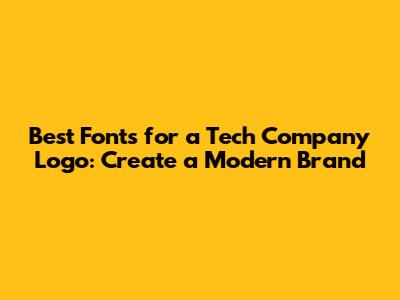
- Helvetica: A classic and timeless font that is known for its neutrality and versatility.
- Arial: A widely used font that is similar to Helvetica but with slight differences in its design.
- Futura: A geometric font that conveys a sense of futurism and precision.
- Open Sans: A humanist sans-serif font that is highly readable and approachable.
- Roboto: A modern and clean font that is designed for readability on digital screens.
- Times New Roman: A classic serif font that is known for its readability and versatility.
- Georgia: A serif font that is designed for readability on digital screens.
- Playfair Display: A high-contrast serif font that is elegant and sophisticated.
- Merriweather: A serif font that is designed for readability on both print and digital media.
- Roboto Slab: A slab serif font that is modern and approachable.
- Futura: As mentioned earlier, Futura is a classic geometric font that is known for its clean lines and minimalist design.
- Gotham: A geometric sans-serif font that is highly readable and versatile.
- Montserrat: A geometric sans-serif font that is inspired by urban typography.
- Raleway: A geometric sans-serif font that is elegant and modern.
- Cabin: A humanist sans-serif font that is inspired by geometric forms.
- Bebas Neue: A tall and narrow sans-serif font that is popular for headlines and titles.
- Avenir: A geometric sans-serif font that is modern and elegant.
- Lato: A sans-serif font that is both readable and stylish.
- Poppins: A geometric sans-serif font that is modern and versatile.
- Exo: A futuristic sans-serif font that is inspired by space exploration.
- Consider Your Brand Identity: What is your brand all about? Are you innovative, reliable, playful, or sophisticated? Your font should reflect these qualities. Think about your brand's personality and values, and choose a font that aligns with them.
- Think About Your Target Audience: Who are you trying to reach? Are you targeting tech-savvy millennials, business professionals, or a more general audience? Your font should appeal to your target audience and resonate with their preferences.
- Ensure Readability and Legibility: This is crucial! Your logo should be easily readable across various platforms and sizes, from websites and mobile apps to business cards and billboards. Avoid fonts that are too decorative or stylized, as they can be difficult to read.
- Test Your Font in Different Contexts: Before finalizing your font choice, test it out in different contexts to see how it looks. Try it in different sizes, colors, and backgrounds. Make sure it looks good both online and offline.
- Consider Font Pairing: Sometimes, using two different fonts in your logo can create a more dynamic and visually appealing effect. However, it's important to choose fonts that complement each other well. A general rule of thumb is to pair a sans-serif font with a serif font, or a bold font with a lighter font.
- Don't Be Afraid to Be Unique: While it's important to consider popular font choices, don't be afraid to be unique and choose a font that stands out from the crowd. However, make sure your font is still appropriate for your brand and target audience.
- Get Feedback: Ask for feedback from colleagues, friends, or even potential customers. Getting a fresh perspective can help you identify any potential issues or make sure your font choice is resonating with your target audience.
Choosing the best font for your tech company logo is super important, guys! It's not just about picking something that looks cool; it’s about finding a typeface that perfectly embodies your brand's identity, values, and vision. Your logo is often the first thing potential customers see, so you want it to make a stellar impression. A well-chosen font can communicate innovation, reliability, and sophistication – all key traits for a successful tech company. On the flip side, a poorly chosen font can make your brand look outdated, unprofessional, or even untrustworthy. Think about it: a tech startup using Comic Sans? Yikes! Not a good look, right? Selecting the right font is a strategic decision that can significantly impact how your brand is perceived in the marketplace. It's about striking a balance between aesthetics and functionality, ensuring that your logo is not only visually appealing but also easily readable across various platforms and sizes. In this article, we'll dive into some of the best fonts that can help your tech company stand out from the crowd and make a lasting impression. We'll explore different font categories, discuss their unique characteristics, and provide practical tips for choosing the perfect font for your brand. So, buckle up and get ready to discover the fonts that will elevate your tech company's logo to the next level!
Understanding the Importance of Typography in Branding
Typography plays a critical role in branding, especially for tech companies aiming to project a modern and innovative image. The fonts you choose aren't just decorative elements; they're powerful tools that communicate your brand's personality and values. Think of typography as the voice of your brand – it speaks volumes without saying a word. Different fonts evoke different emotions and associations. For example, a clean and geometric sans-serif font might convey a sense of modernity, efficiency, and trustworthiness, while a more playful and rounded font could suggest creativity and approachability. The key is to align your font choices with your brand's core identity. Consider the overall message you want to send to your target audience. Are you a cutting-edge AI startup pushing the boundaries of technology? Or are you a user-friendly software company focused on simplifying complex tasks? Your font should reflect these nuances. Moreover, typography affects readability and legibility. A well-chosen font ensures that your logo and other marketing materials are easily readable across various platforms, from websites and mobile apps to business cards and billboards. Poorly chosen fonts, on the other hand, can strain the eyes and make it difficult for customers to engage with your brand. In the digital age, where attention spans are shorter than ever, you need to make sure your typography is on point. A consistent and well-thought-out typography strategy can also strengthen brand recognition and create a cohesive visual identity. When customers see your logo, website, or marketing materials, they should immediately recognize your brand based on the fonts you use. This consistency helps build trust and familiarity, making it easier for customers to connect with your brand on an emotional level. So, don't underestimate the power of typography. It's a fundamental element of branding that can make or break your tech company's image. By carefully selecting fonts that align with your brand's personality, values, and target audience, you can create a strong and memorable visual identity that sets you apart from the competition.
Top Font Categories for Tech Logos
When it comes to selecting the best font for your tech company logo, exploring different font categories is a great starting point. Each category has its unique characteristics and conveys a different message, so it's important to understand the nuances of each one. Here are some top font categories that are commonly used for tech logos:
1. Sans-Serif Fonts
Sans-serif fonts are often the go-to choice for tech companies because they exude modernity, simplicity, and clarity. Unlike serif fonts, which have small decorative strokes at the end of each letter, sans-serif fonts have clean, unadorned lines. This minimalist aesthetic makes them ideal for conveying a sense of efficiency, innovation, and trustworthiness. Some popular sans-serif fonts for tech logos include: